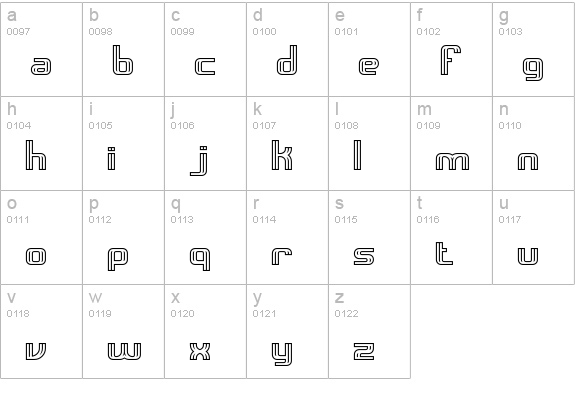
Intersect C BRK Font Details
Intersect C BRK font is a captivating and dynamic typeface that exudes a sense of modernity and innovation. Its bold and angular letterforms make it perfect for creating eye-catching headlines, logos, and posters. This contemporary font combines geometric precision with a touch of playfulness, resulting in a unique and impactful design. What makes Intersect C BRK font even more appealing is that it is available for free download at FontsMarket.com. This means that you can easily access and use this exceptional font without any cost or restrictions. Whether you are a professional designer looking to add a fresh and distinctive touch to your projects or an enthusiast wanting to experiment with typography, Intersect C BRK font is a fantastic choice. With its wide range of characters and extensive language support, Intersect C BRK font offers versatility and flexibility in various design applications. The clean and crisp lines of this font ensure legibility even at smaller sizes, making it suitable for both print and digital media. Additionally, Intersect C BRK font's contemporary aesthetic makes it an excellent choice for branding and corporate identities. Its strong and memorable presence helps businesses stand out from the competition and leaves a lasting impression on their target audience. Overall, Intersect C BRK font is a powerful and visually appealing typeface that combines modernity, versatility, and ease of use. Its availability as a free download at FontsMarket.com makes it accessible to designers and enthusiasts alike, allowing them to unleash their creativity and create stunning designs without any limitations.